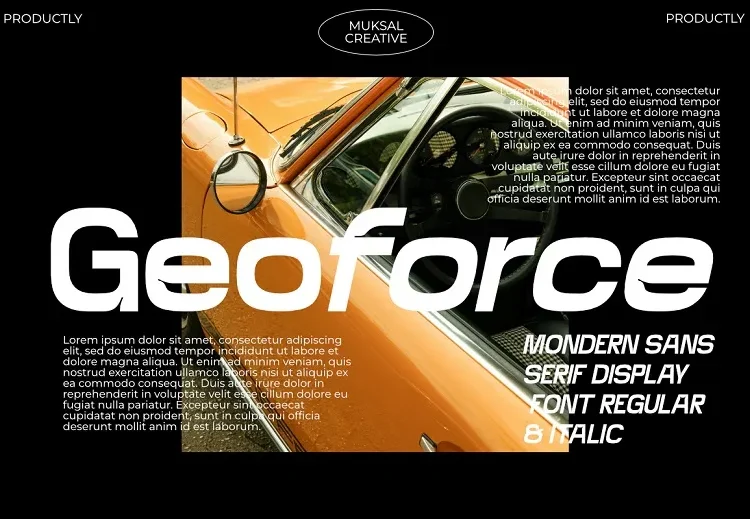
Geoforce Font
Geoforce is a powerful sans serif font that combines geometric precision with bold thickness, making it an excellent choice for projects with a futuristic and edgy appeal. Whether you’re creating tech logos, posters, or any design that demands attention, Geoforce delivers with its modern and dynamic aesthetic.
Key Features of Geoforce:
• Geometric Precision: The font’s well-defined shapes give it a strong and stable appearance, perfect for conveying information clearly and effectively.
• Bold Thickness: Designed with thickness that enhances its powerful feel, making it ideal for bold and impactful design projects.
• Versatile Application: From tech logos to futuristic posters, Geoforce is versatile enough to suit a variety of design needs.
Ideal Uses for Geoforce:
• Tech Logos: Perfect for creating logos that reflect innovation and cutting-edge technology.
• Futuristic Posters: Stand out with designs that need a modern and forward-thinking look.
• Attention-Grabbing Design: Ideal for any project that requires a bold statement, ensuring your message gets noticed.